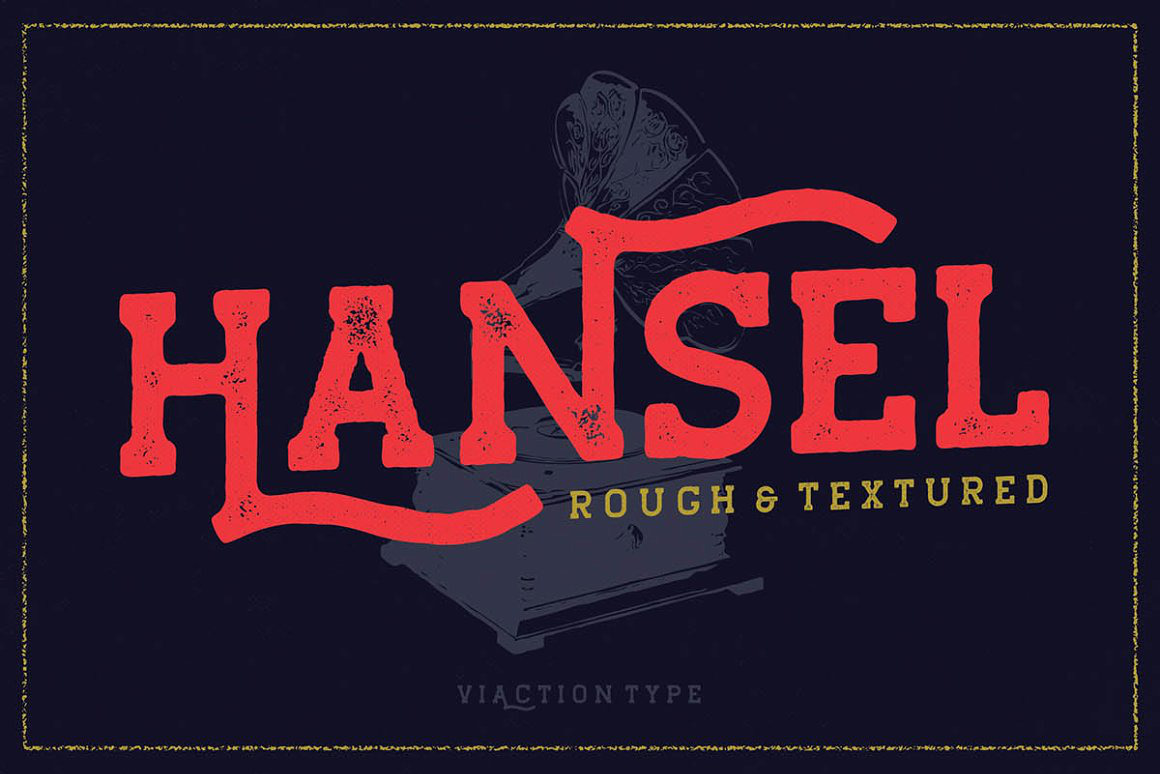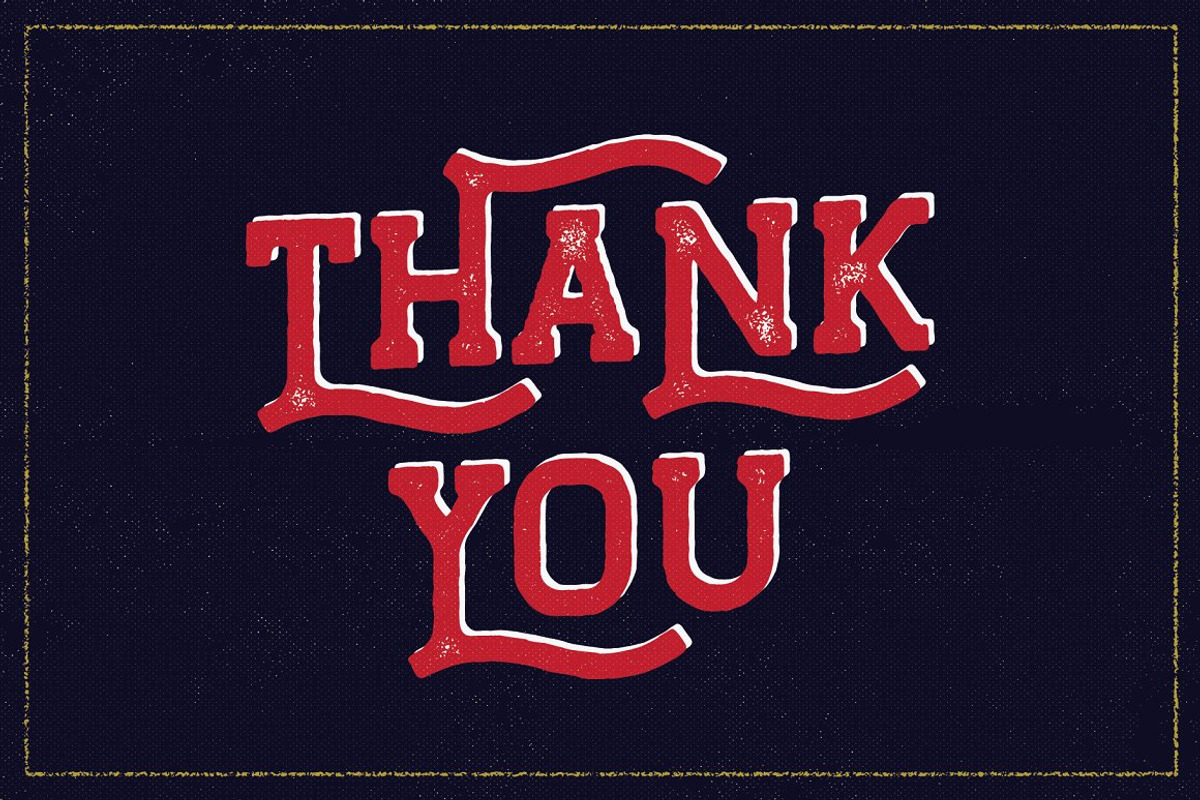
VT Hansel - Vintage Display Font
Hansel is a slab serif with 2 styles rough & textured, nice applied in various products. Complete with multilingual characters and stalistic alternates. It is suitable for quote, clothing design, vintage logo, label, poster, packaging design and other designs.
- UPPERCASE.
- LOWERCASE.
- MULTILINGUAL.
- PUNCTUATION & SYMBOL.
- STYLISTIC SET.